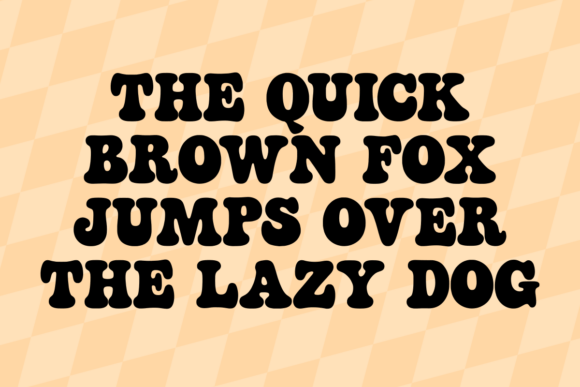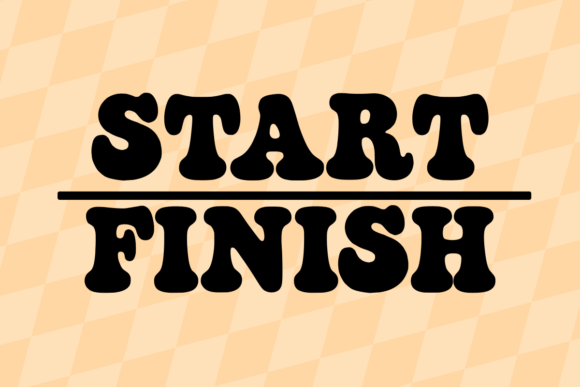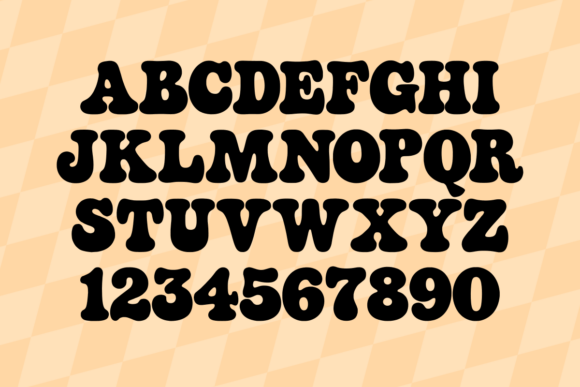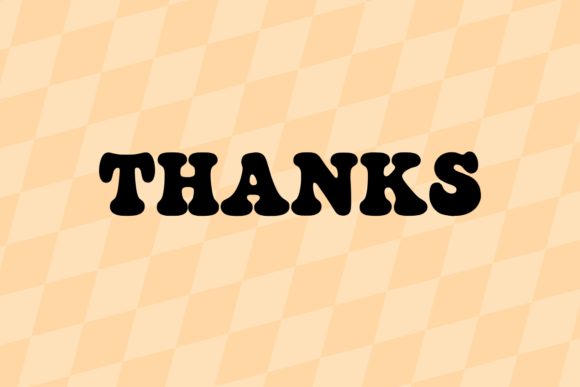
Introduction to Jelly Black Font
Jelly Black is a playful and bold display typeface that exudes fun and charm.
With its bubbly, rounded edges and thick structure, this font is perfect for headlines, posters, childrenโs designs, or any project needing a touch of whimsical energy Jelly Black strikes the balance between nostalgia and modern aesthetics, making it an excellent choice for vibrant branding, apparel, and packaging.
Key Features of Jelly Black Font